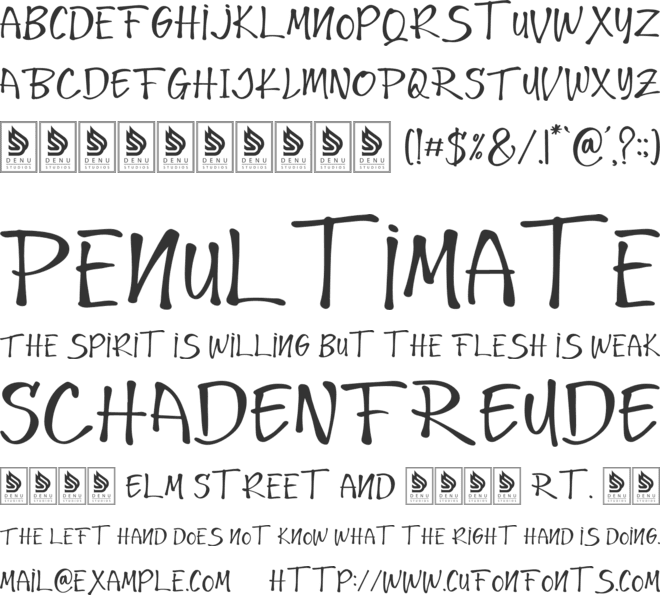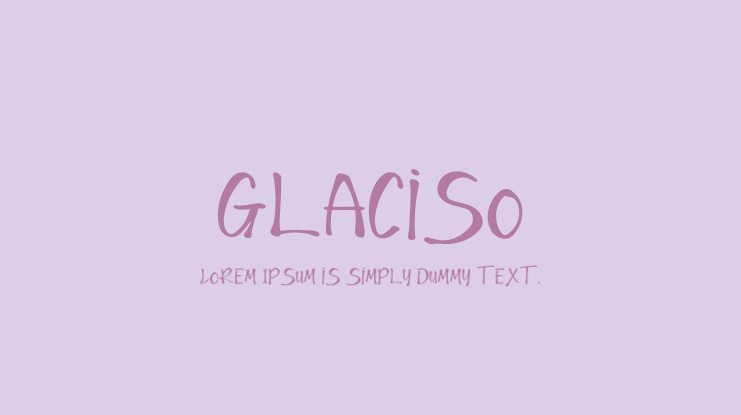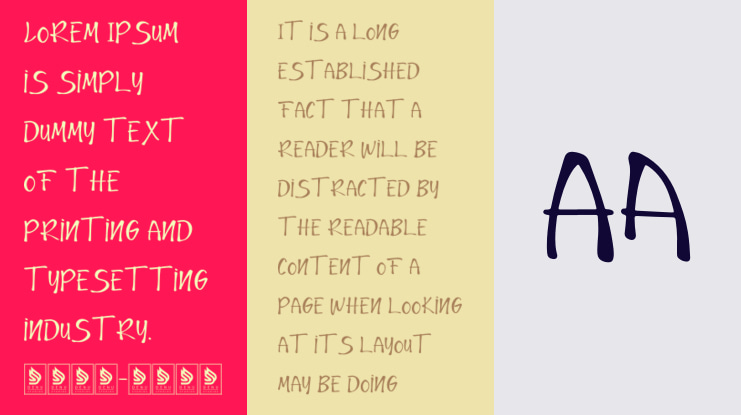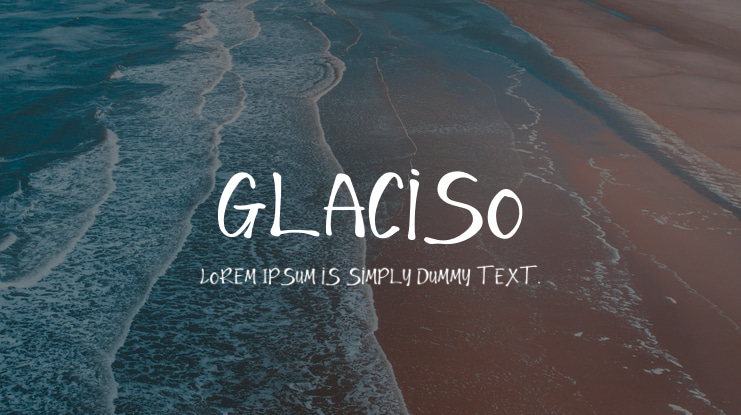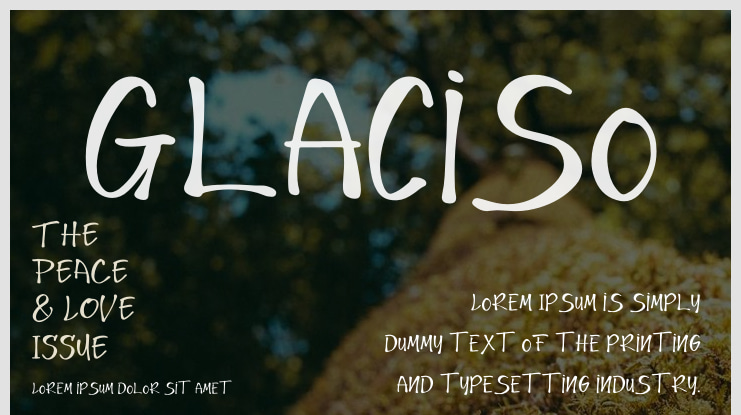
Glaciso Font
Glaciso | Handwritten Typeface is suitable for various projects such as:
• Logos
• Branding projects
• Homeware designs
• Product packaging
• Mugs
• Quotes
• Posters
• Shopping bags
• T-shirts
• Book covers
• Name cards
• Invitation cards
• Greeting cards
• Labels
• Photography
• Watermarks
• Special events
• And all your other lovely projects that need a Handwritten Typeface taste.